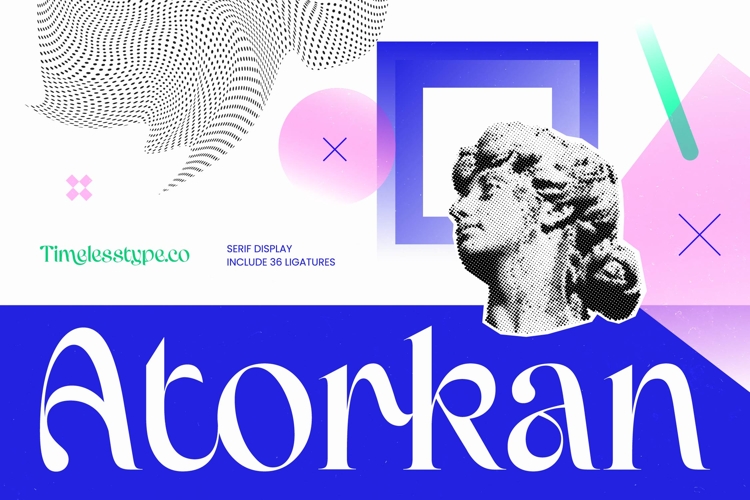
Atorkan - Serif Display Font
Elevate your design identity with modern sophistication and undeniable elegance. Atorkan - Serif Display Font is a masterfully crafted typeface that balances high-contrast strokes with fluid, expressive curves. Its aesthetic captures a perfect blend of classical inspiration and avant-garde style, ensuring your headlines command attention. By choosing Atorkan - Serif Display Font, you gain an asset capable of transforming standard layouts into visually stunning works of art.
Expand your creative reach across borders effortlessly with robust technical features. With its extensive multilingual support, Atorkan - Serif Display Font adapts seamlessly across global markets, making it incredibly versatile for international projects. This cross-cultural adaptability ensures your brand message remains impactful across a vast range of languages, making Atorkan - Serif Display Font an essential choice for today’s globally-focused designers.